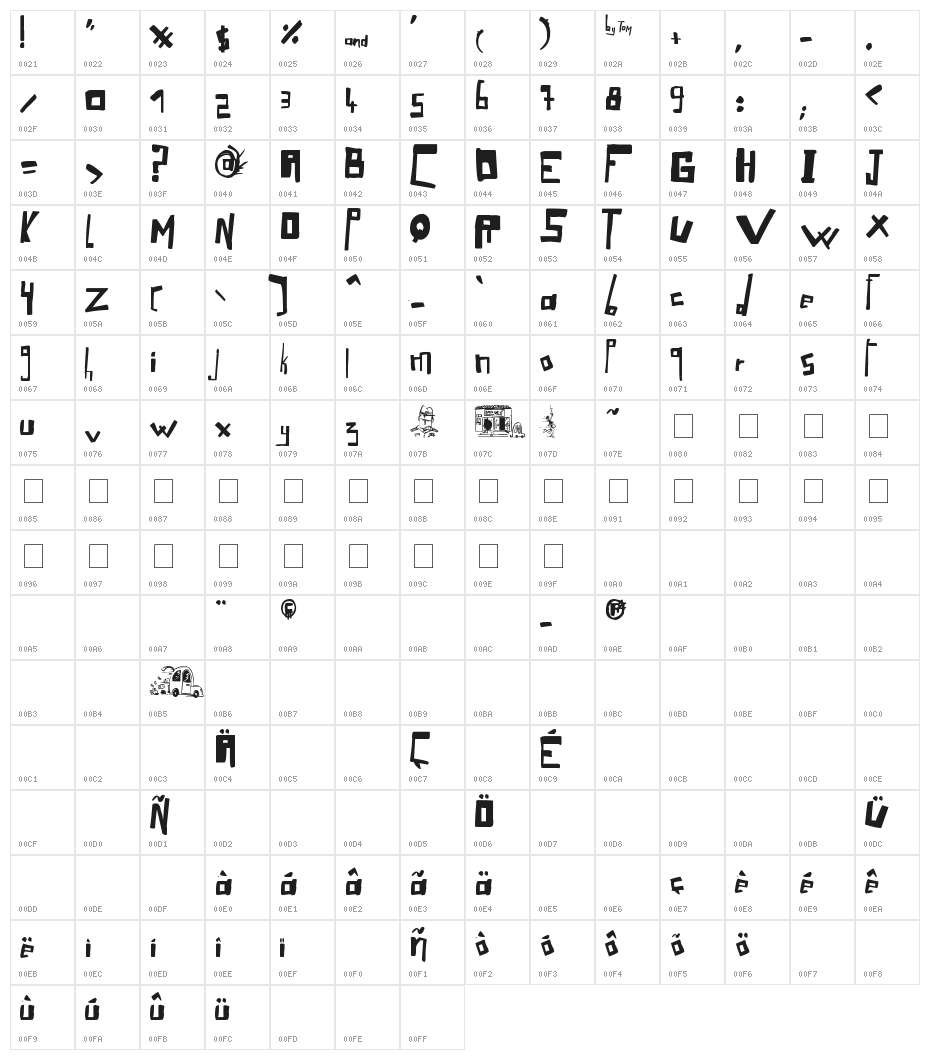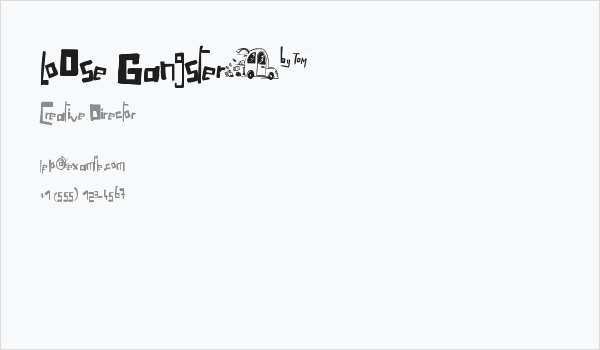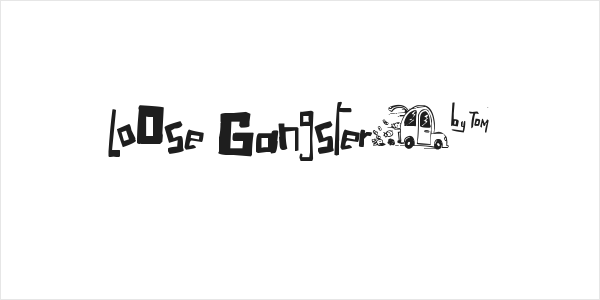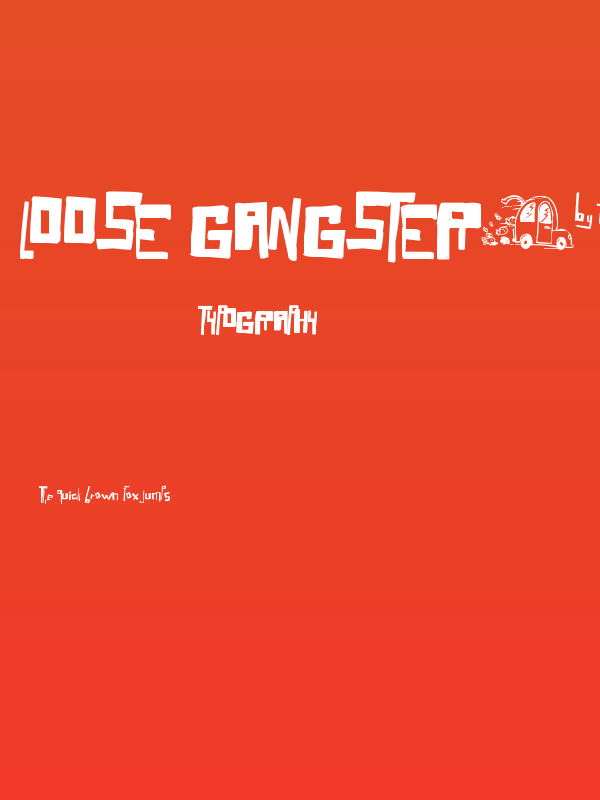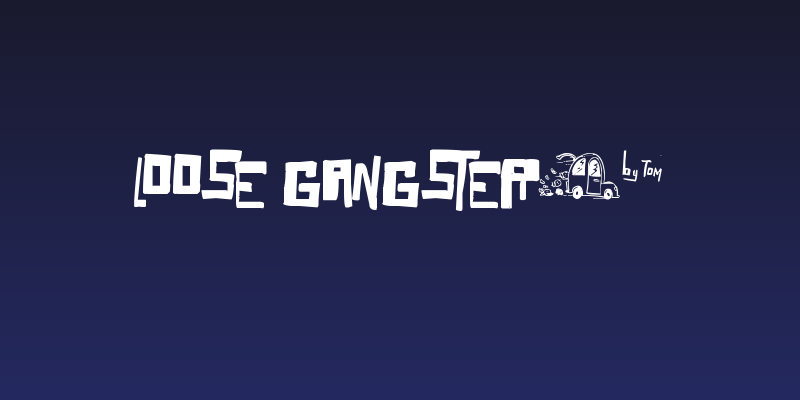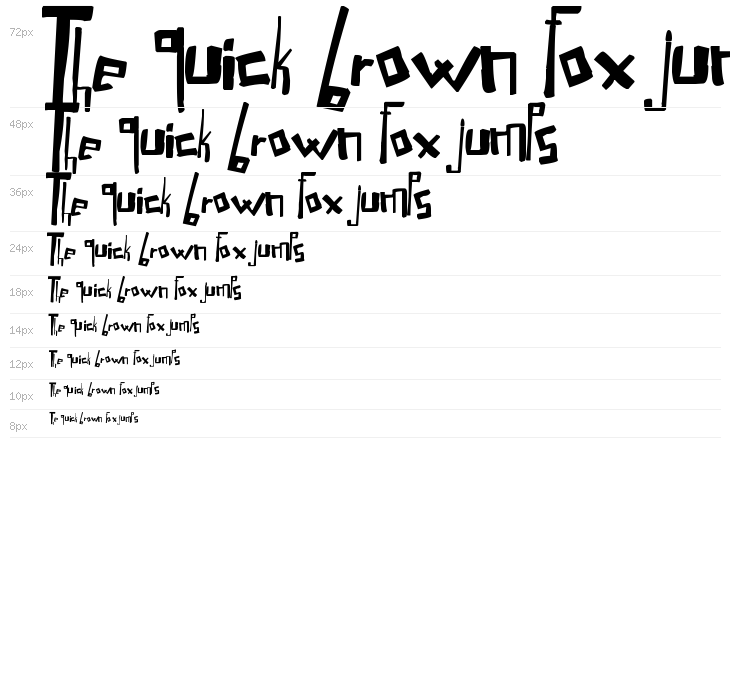
LoOse Gangsterµ* Font
LoOse Gangsterµ* Description
This font features a bold, graffiti-inspired style with a playful and rebellious edge. The characters are irregular and have a hand-drawn appearance, giving them a unique and dynamic feel. The uppercase letters are particularly bold and angular, while the lowercase letters maintain a consistent style with a slightly more condensed form. Numbers and special characters follow the same aesthetic, adding to the overall cohesive look. The font's design is reminiscent of street art, making it ideal for projects that require a bold and unconventional typeface.
| Overall Style | Modern, Urban |
| Proposed Projects | Ideal for street art projects, edgy branding, music album covers, and urban-themed posters. |